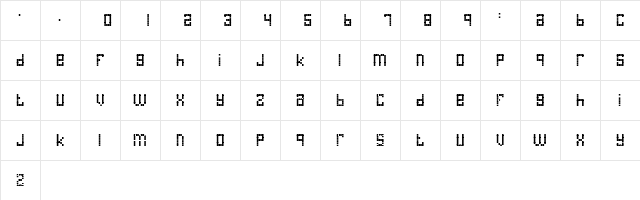
8-bit 8-bit Font Preview
8-bit 8-bit
8-bit 8-bit Font Details
| Style | 8-bit |
| Foundry | defaulterror |
| Designer | Derek Clark |
Design Context for 8-bit Typeface
8-bit is a composed and adaptable typeface that performs quietly and consistently across a wide range of design contexts.